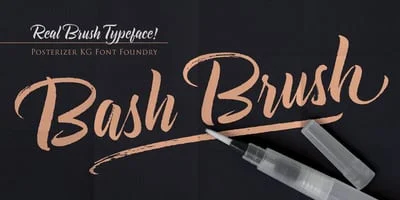
Bash Brush Font
Bash Brush Font is perfect for street art designs, urban fashion branding, graffiti-style logos, edgy poster designs, alternative music album covers, and dynamic sports team graphics.
Bash Brush Font is exciting because it delivers raw, energetic brush strokes that capture the spontaneous spirit of street art, bringing bold personality and urban authenticity to modern design projects.
The Bash Brush Font family includes multiple variations: Bash Brush Regular, Bash Brush Bold, textured alternates, and stylistic sets that enhance the hand-painted brush aesthetic.
Unleash creative energy with Bash Brush Font, a powerful display typeface that brings street-inspired boldness to your design arsenal. This dynamic font excels in creating eye-catching headlines, impactful social media graphics, and rebellious brand identities that demand attention. The authentic brush texture and irregular stroke patterns simulate real paint application, making every letter feel genuinely hand-crafted. Perfect for skateboard graphics, urban clothing lines, concert posters, and youth-targeted marketing campaigns, this font speaks directly to contemporary culture. Each character maintains strong readability while preserving the raw, unpolished charm of street art. When you need typography that breaks conventional boundaries and makes a statement, Bash Brush Font delivers the perfect combination of artistic expression and commercial appeal for your boldest creative ventures.